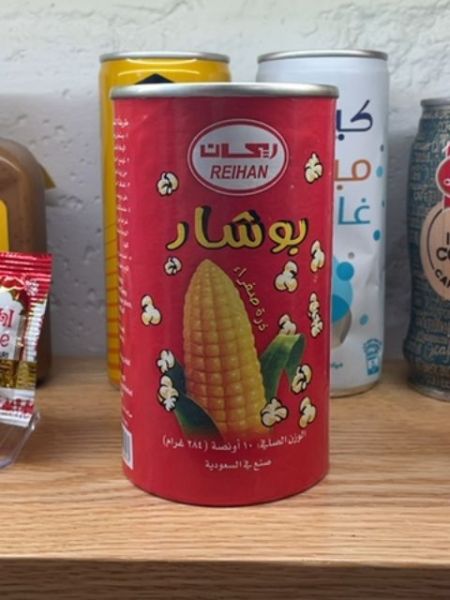
Reihan Popcorn
Pre-packaged popcorn kernels designed for home preparation.
Saudi Arabia
The typography combines both Arabic and English text in a bold and straightforward style. The English text features a sans-serif typeface that ensures clarity and legibility, while the Arabic script uses a traditional, calligraphic style, providing a cultural nuance to the design.
The packaging is a cylindrical red tin with images of popcorn and a corn cob, giving it a vibrant and appealing look. The product name and brand are prominently displayed in both Arabic and English, surrounded by motifs of popcorn pieces. This design aims to catch the eye and convey a sense of fun and enjoyment.